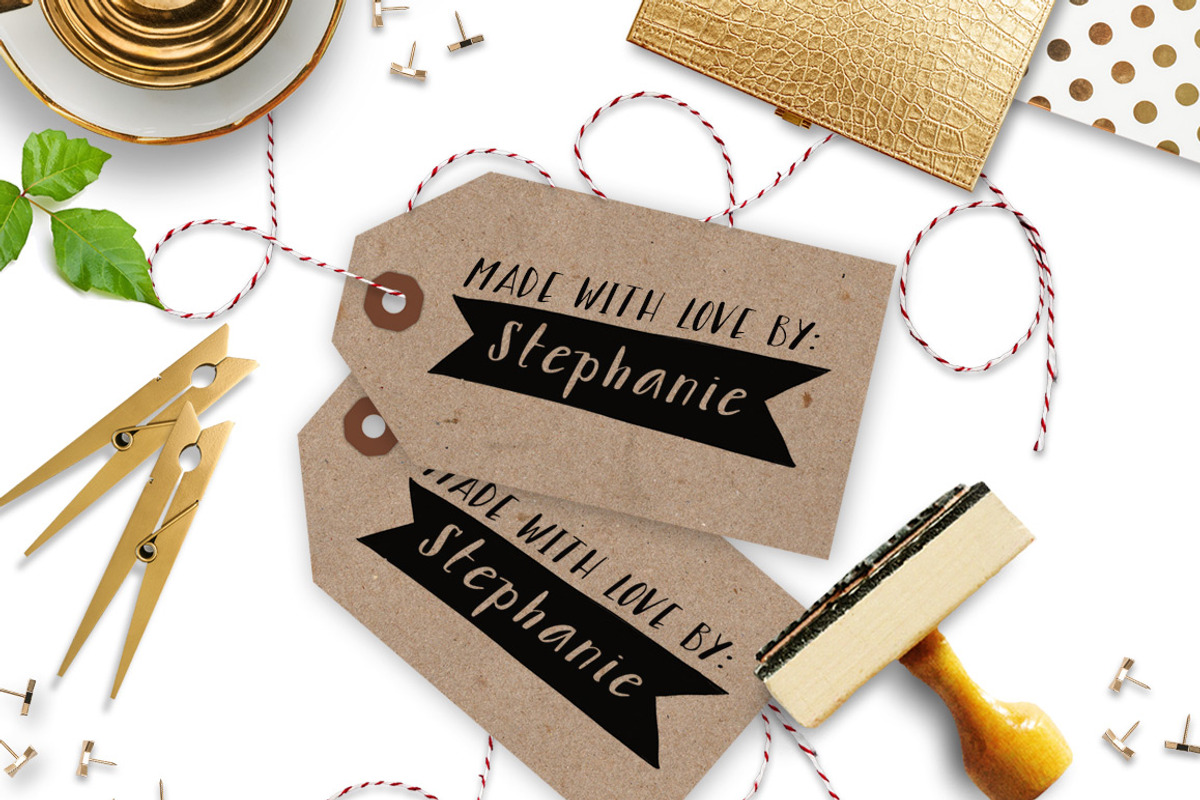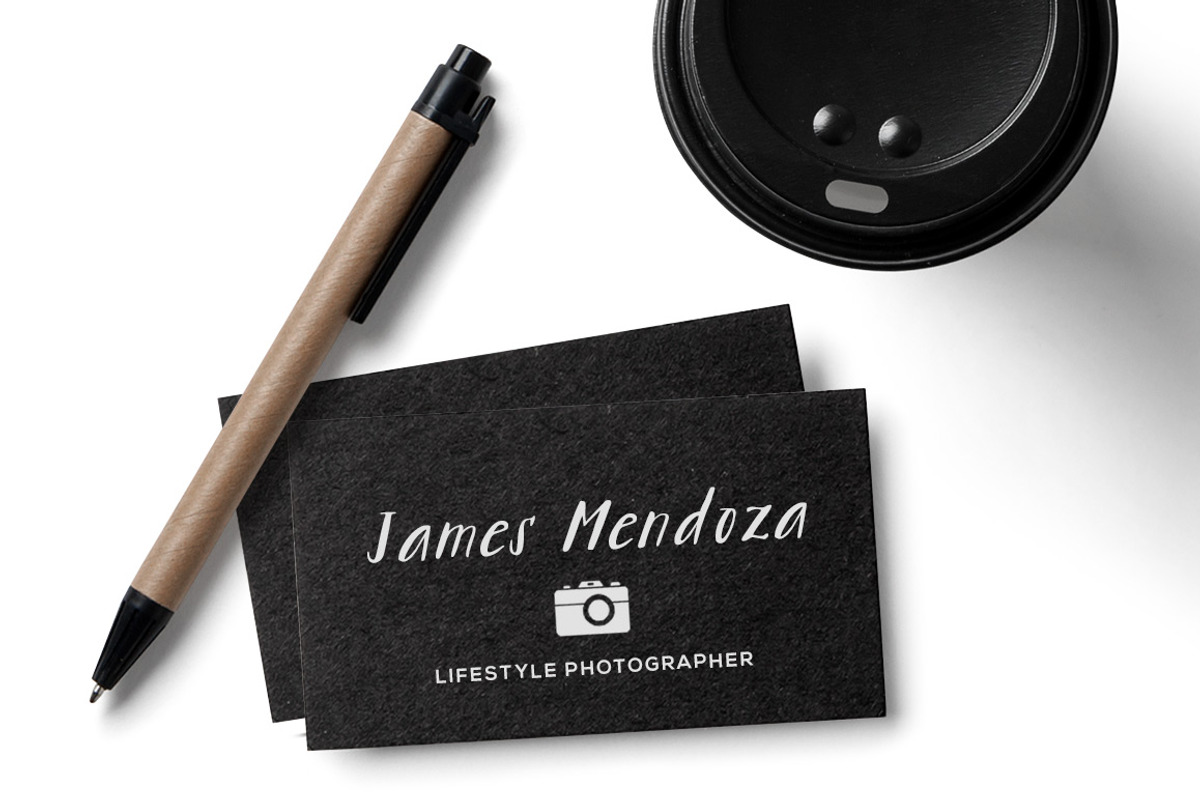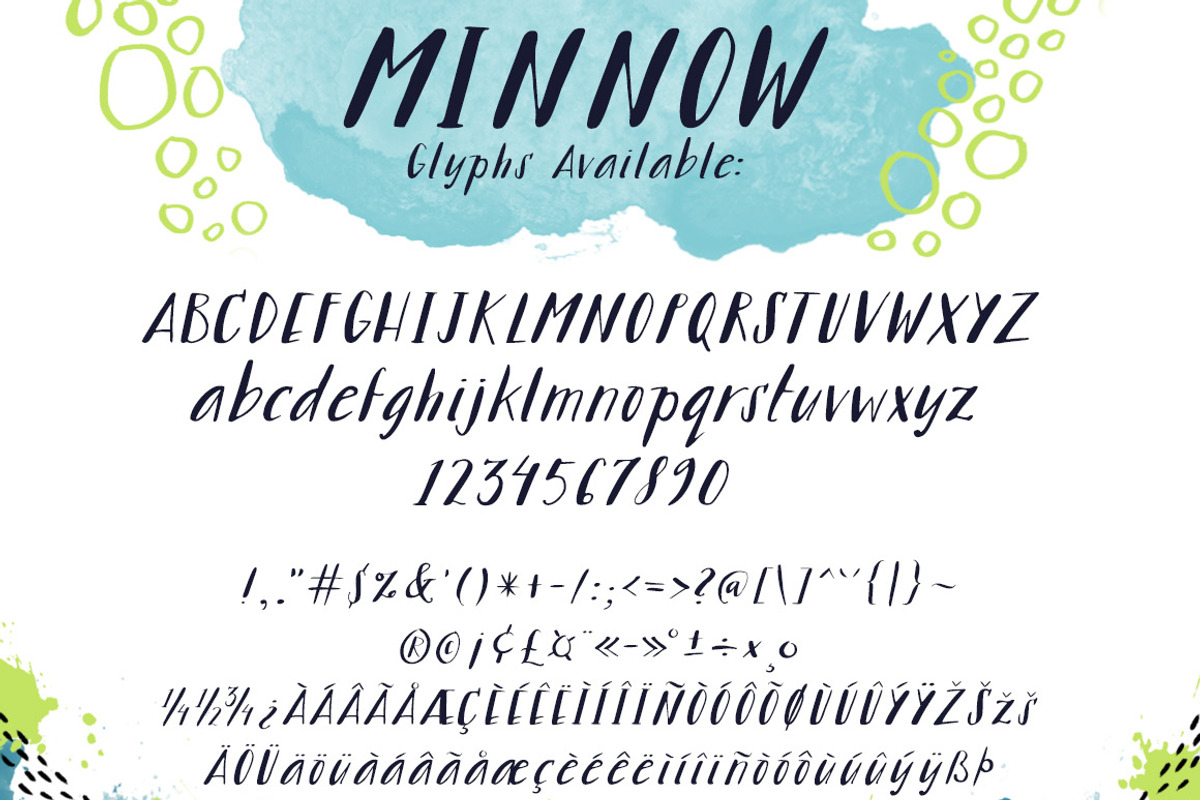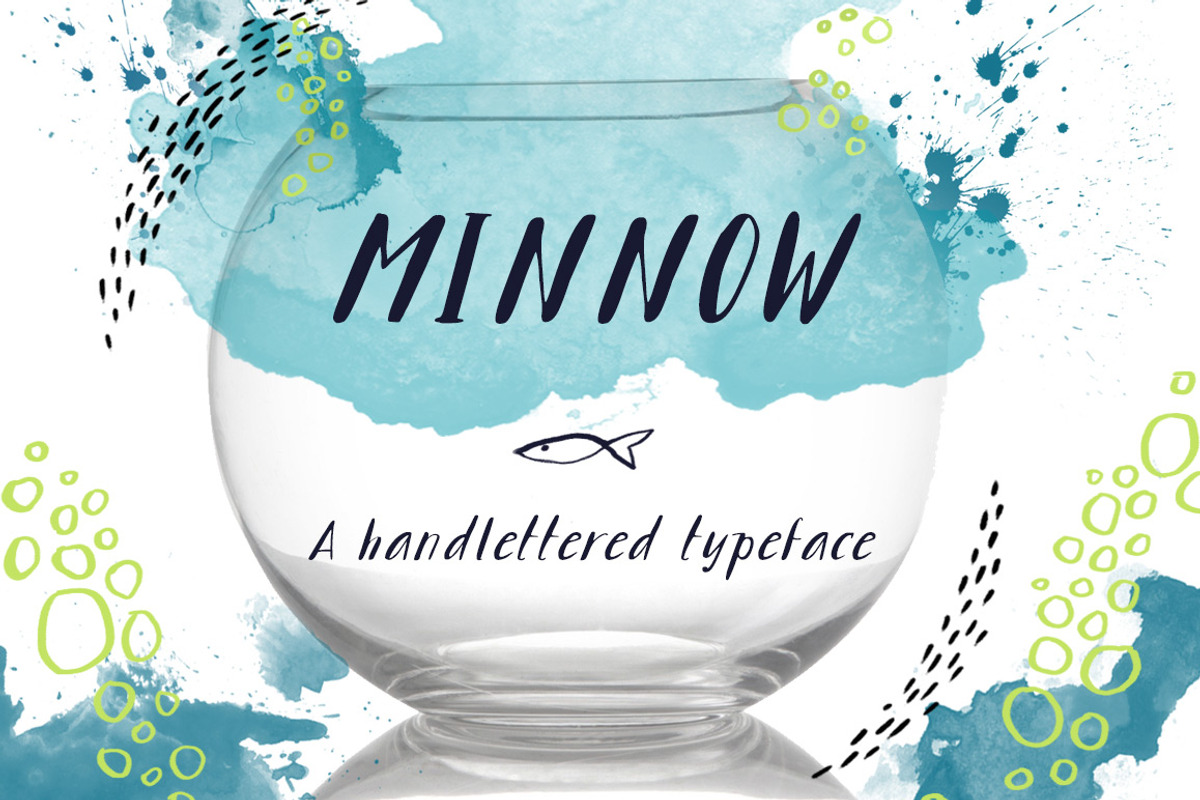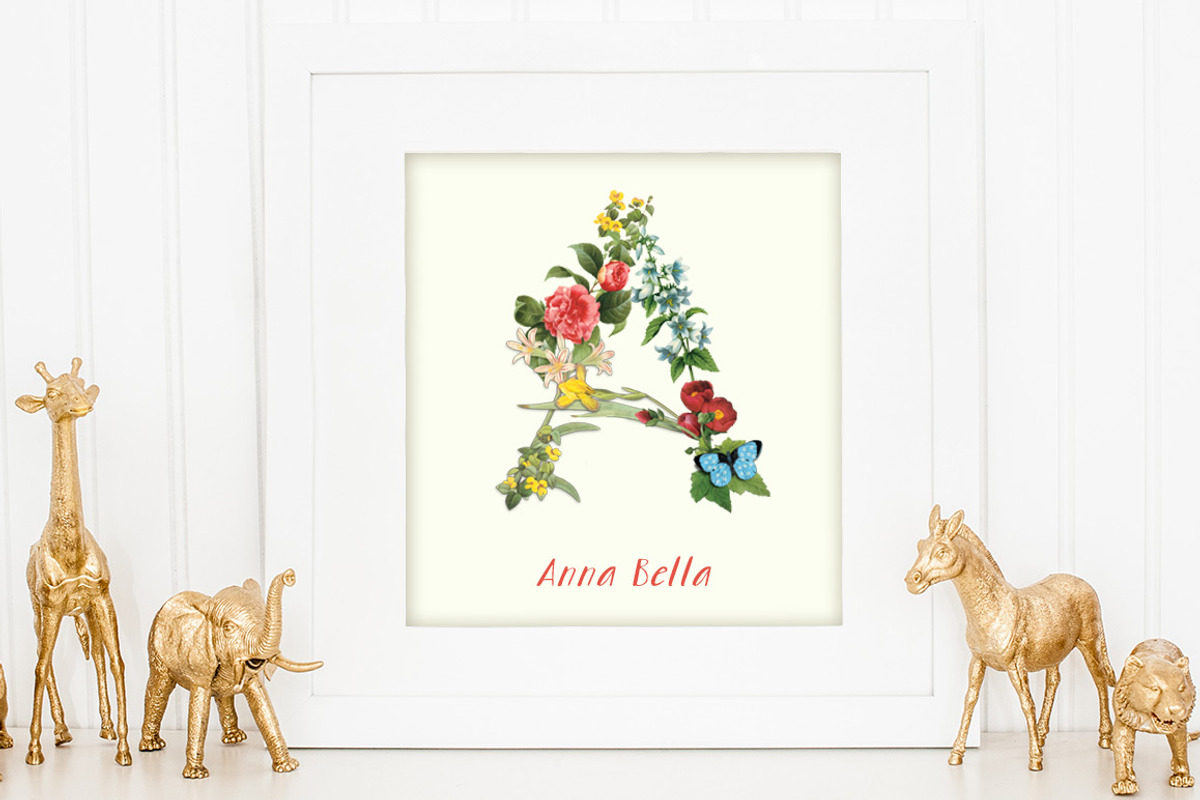
Minnow Handlettered Typeface
Minnow Handlettered Typeface by Lianne Tokey Illustration is a font selected for branding, posters, packaging, typography.
- Minnow Regular
Why Minnow Handlettered Typeface is worth a look
Minnow Handlettered Typeface by Lianne Tokey Illustration fits naturally into Branding, posters, packaging, typography.